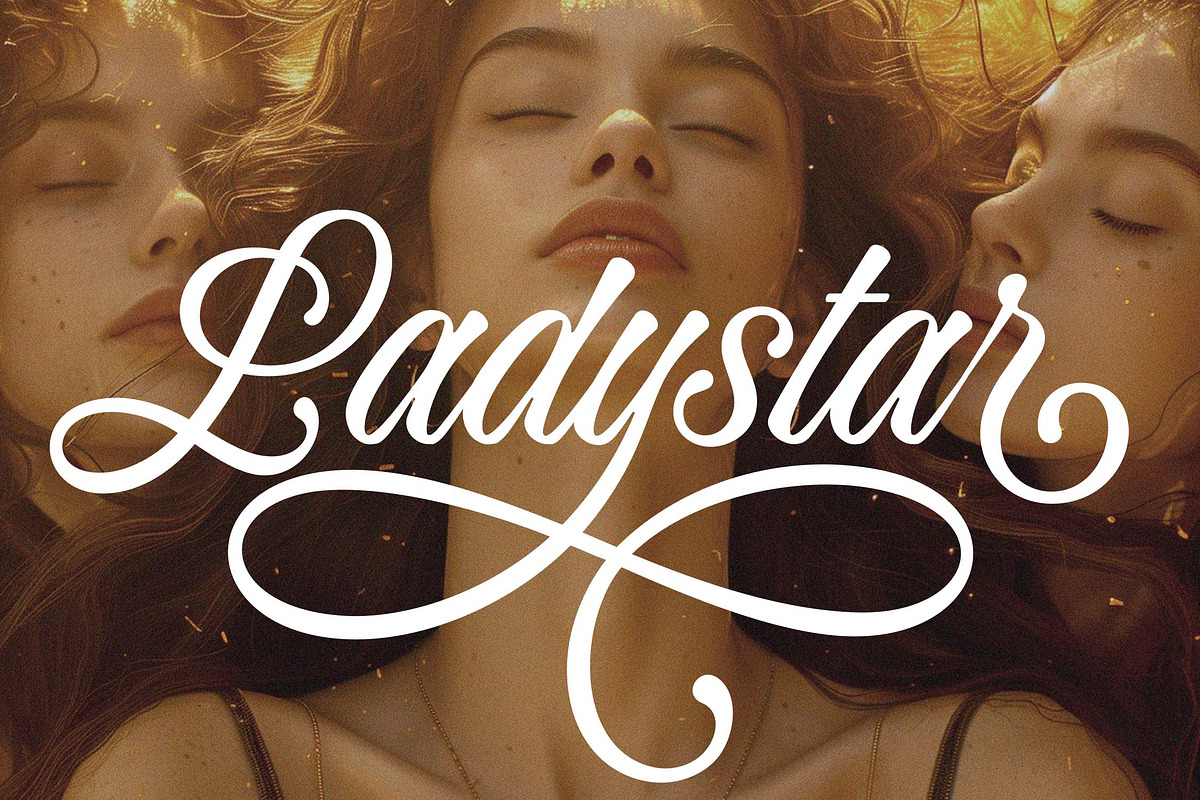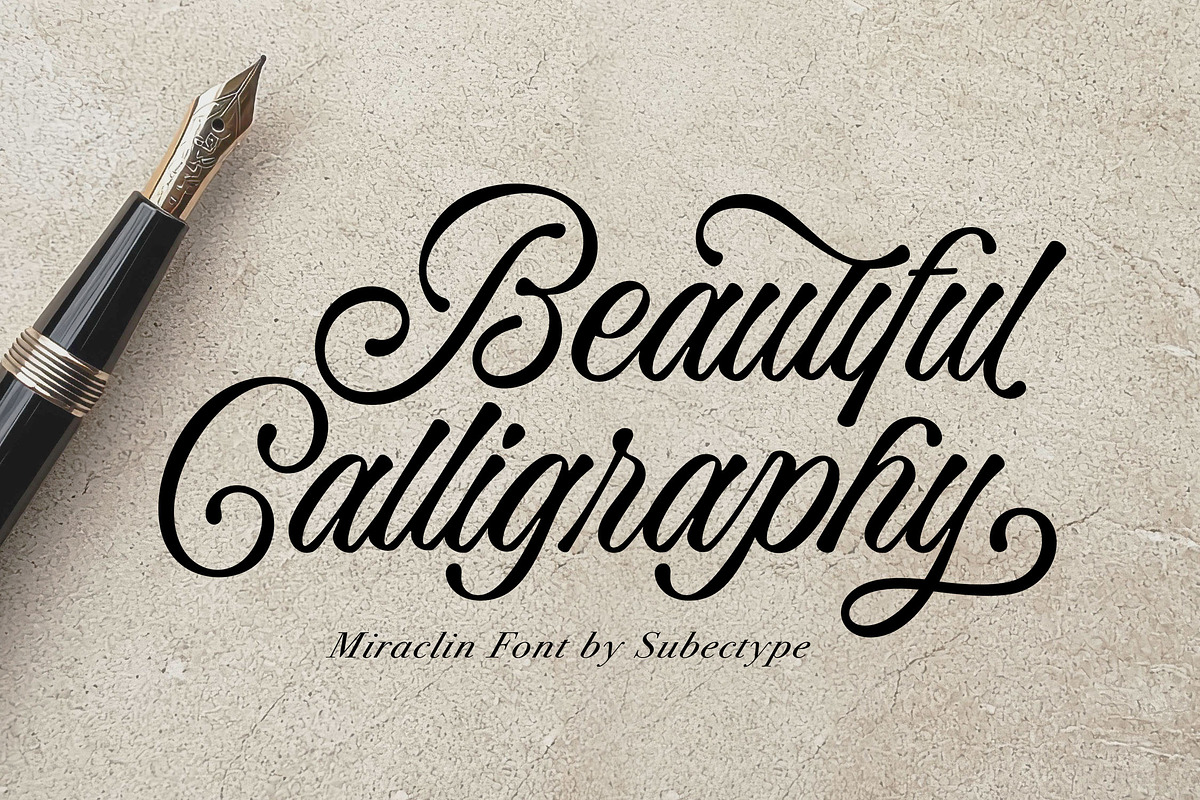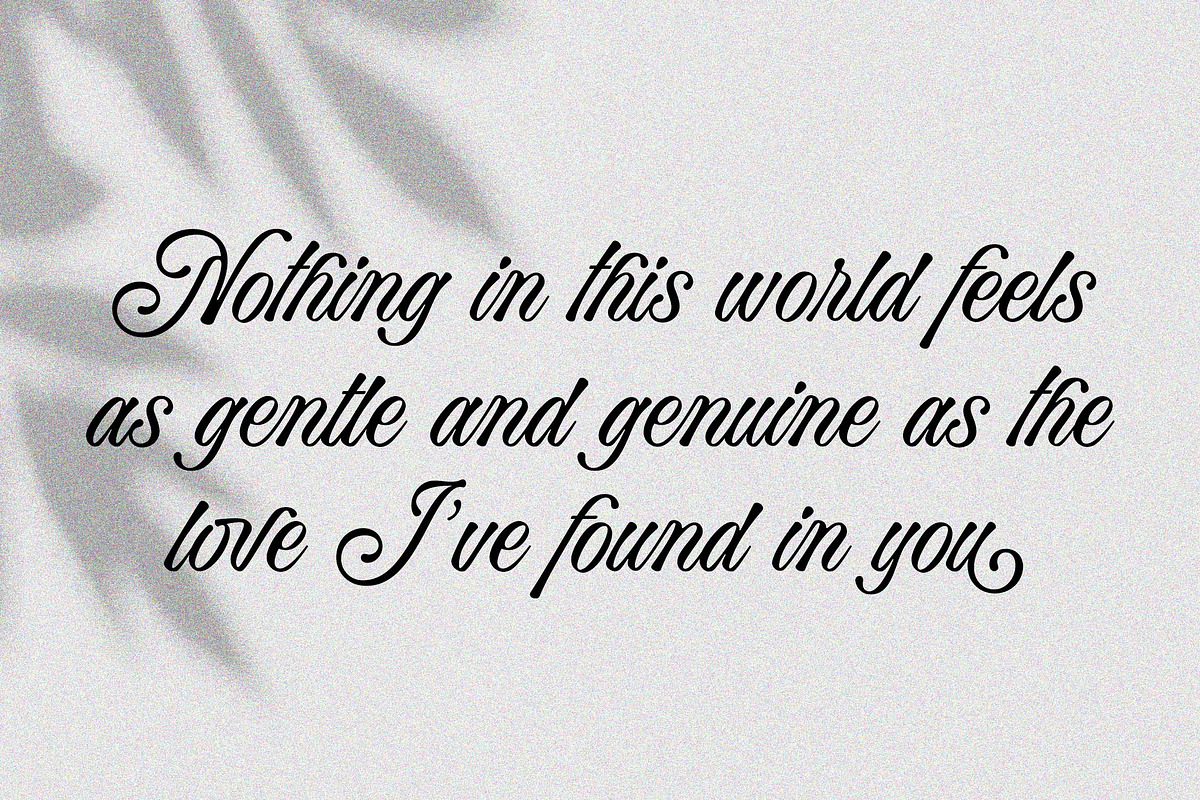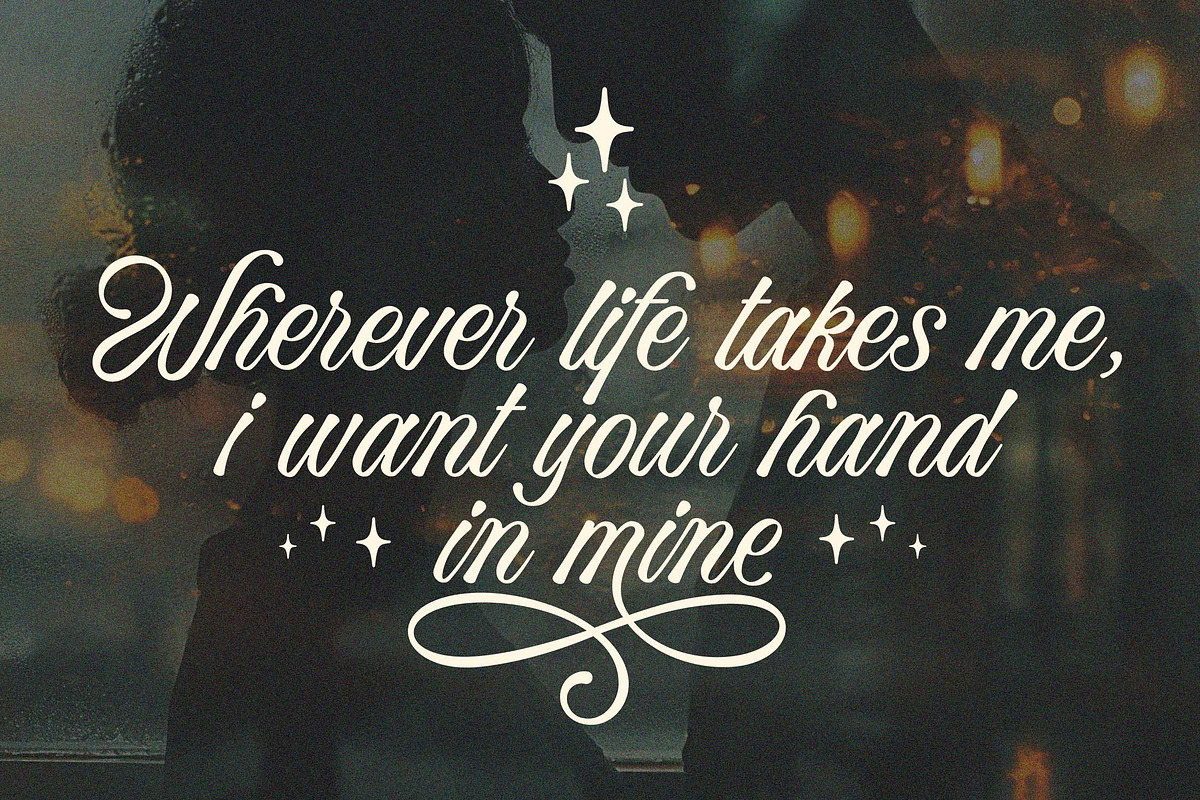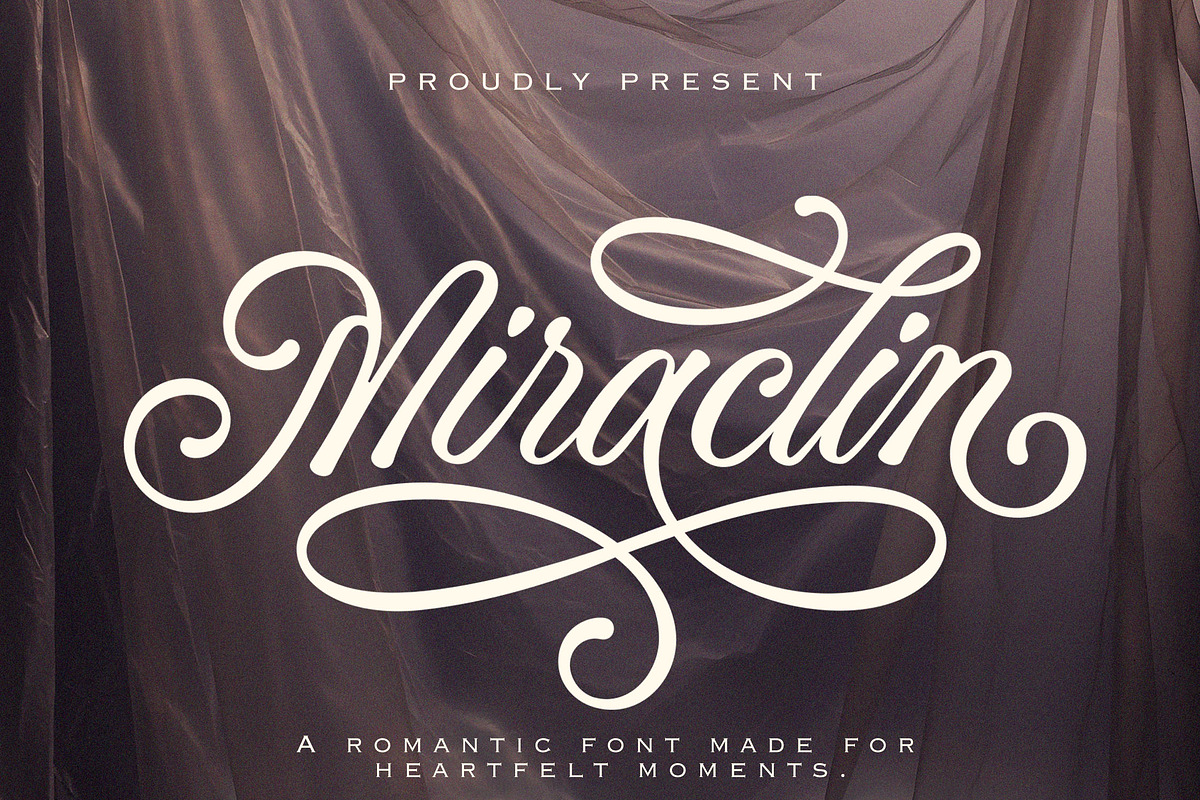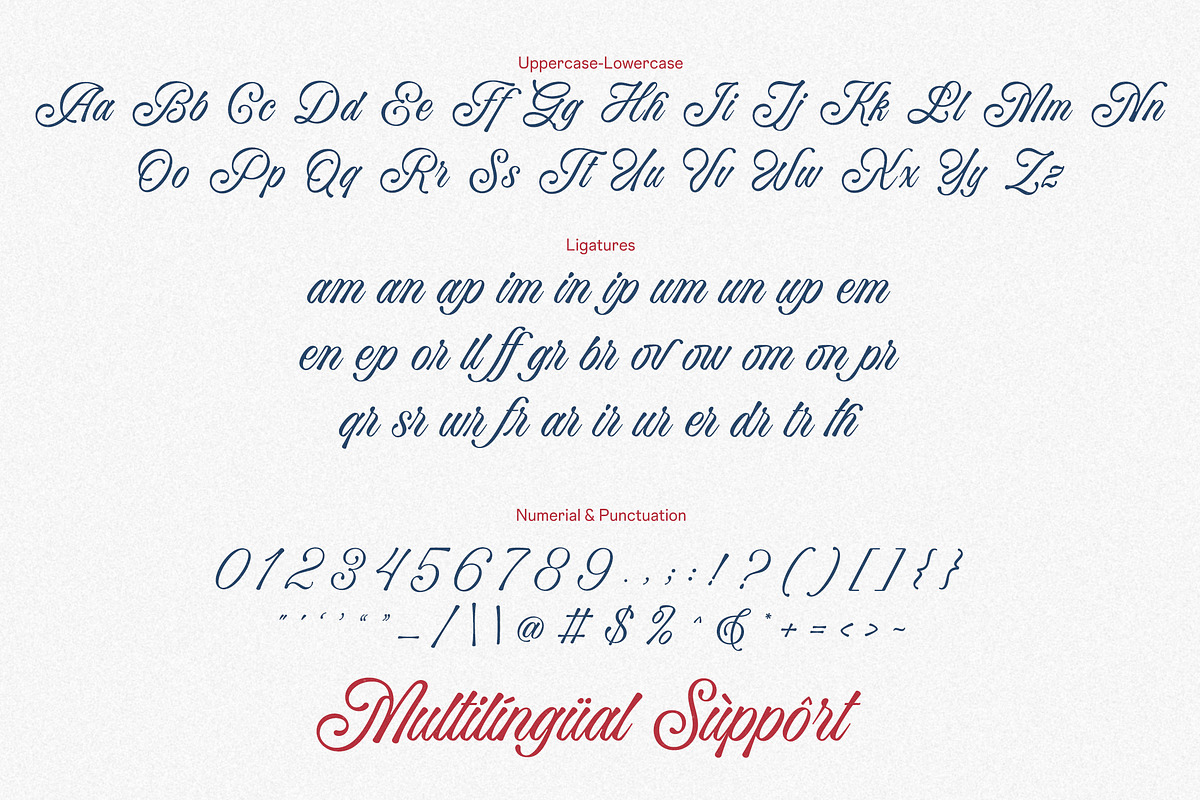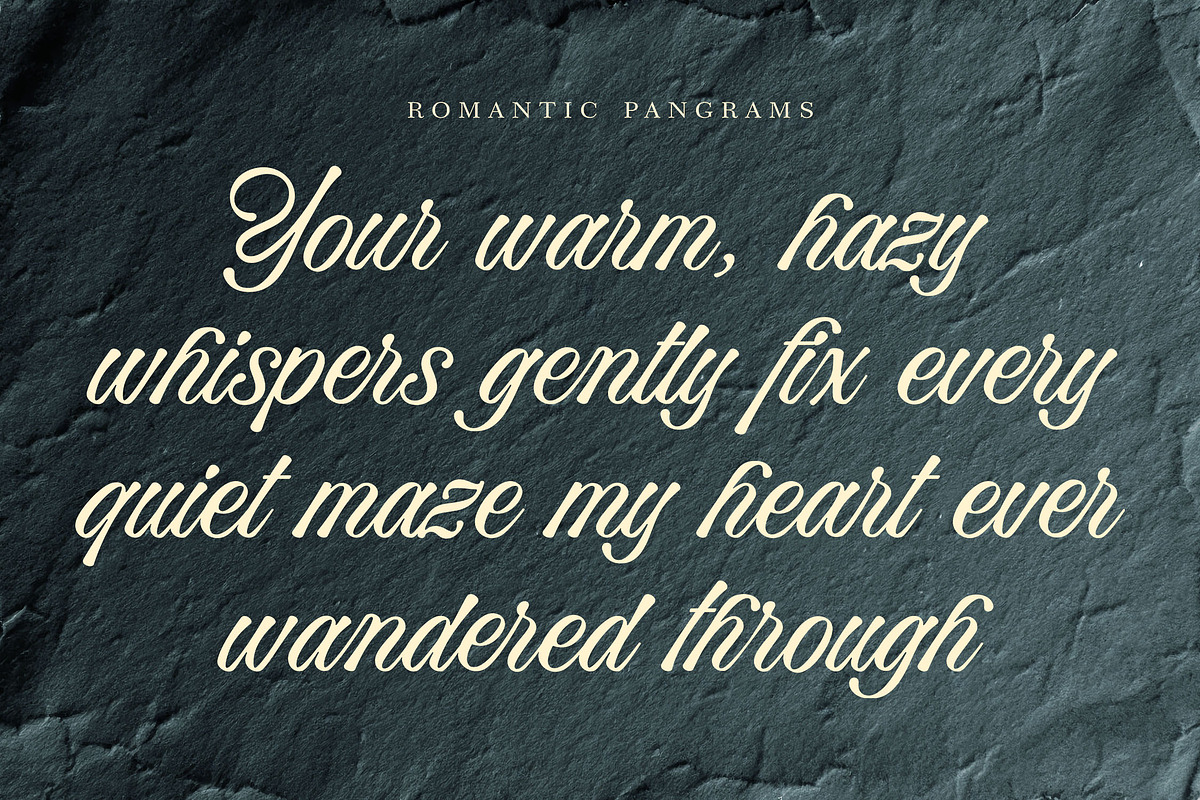
Miraclin - Beautiful Calligraphy Fon
Miraclin is a Chic calligraphy font, described by an Love touch, perfect for Wedding party, invitation, Signature brand, and all of project with beautiful calligraphy font. Fall in love with its incredibly distinct and timeless style and use it to create spectacular designs!